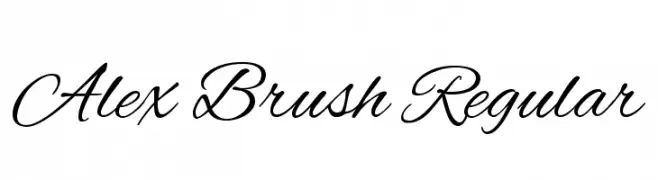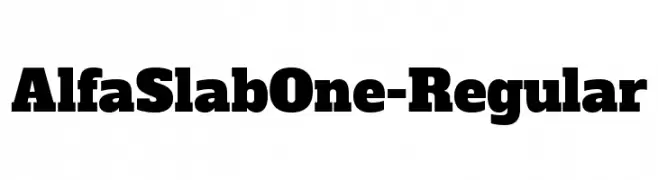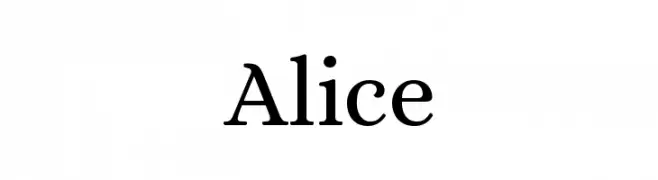
An elegant script font with flowing, cursive strokes and ornate uppercase letters.
A graceful script font with flowing, interconnected cursive letters.
A bold, modern slab serif font with strong, block-like serifs.
A bold, impactful slab serif font with thick, block-like serifs.
A bold and impactful slab serif typeface with strong, block-like serifs.
A classic serif font with elegant strokes and a refined, timeless appeal.
A classic serif font with elegant strokes and balanced proportions.